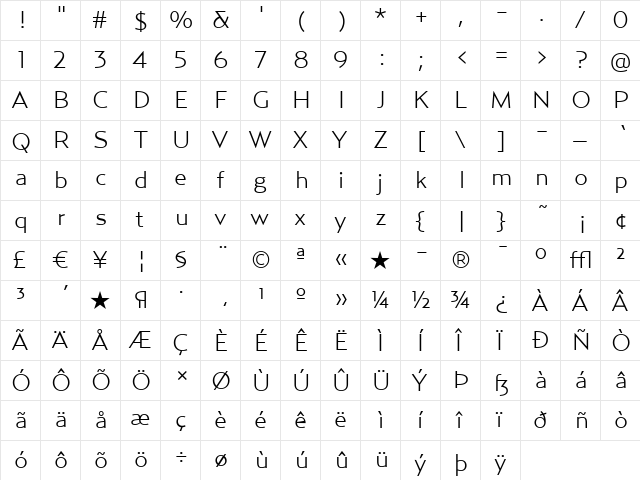
RelayWide-Light Regular
| Designer | Cyrus Highsmith |
Design Context for RelayWide-Light Typeface
RelayWide-Light takes a measured approach to typography — its balanced proportions and neutral character make it a reliable workhorse for both digital and print work. The delicate stroke weight brings airiness and refinement to layouts.